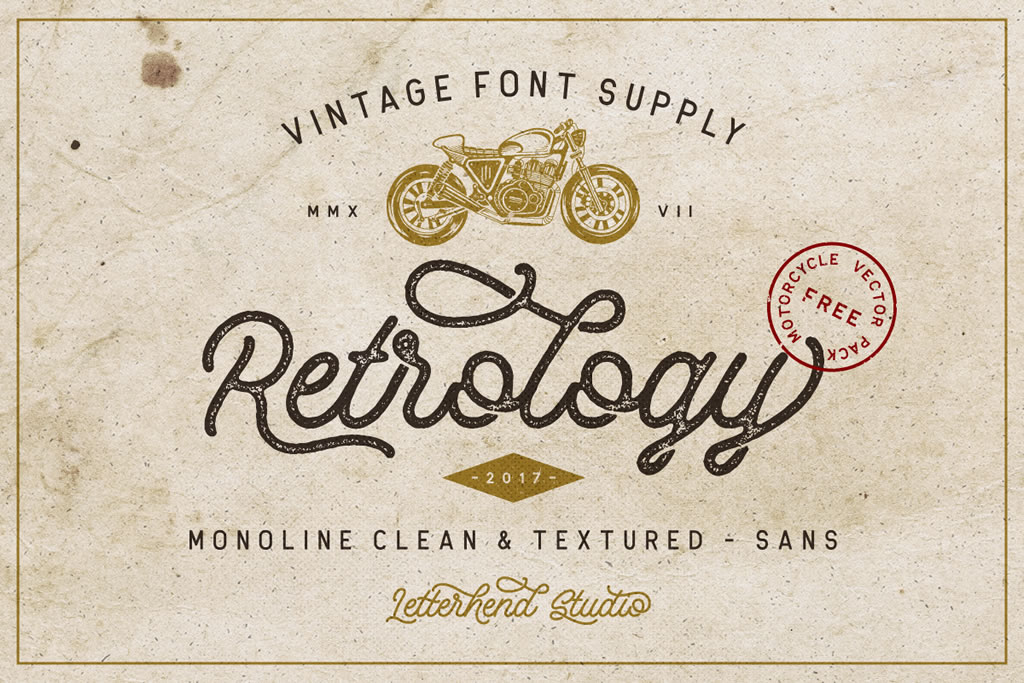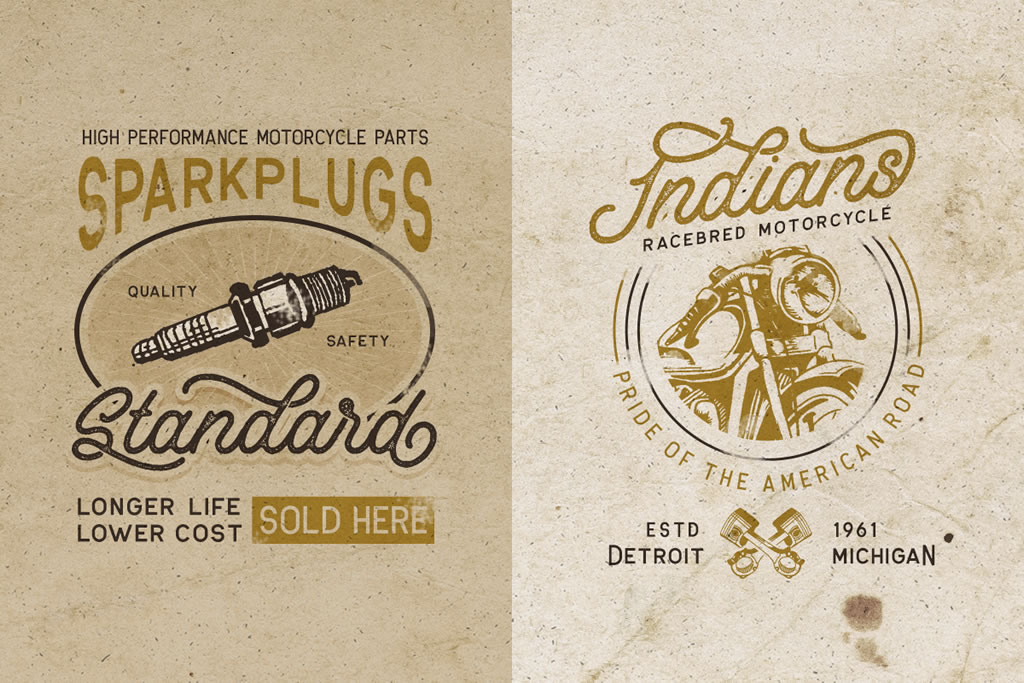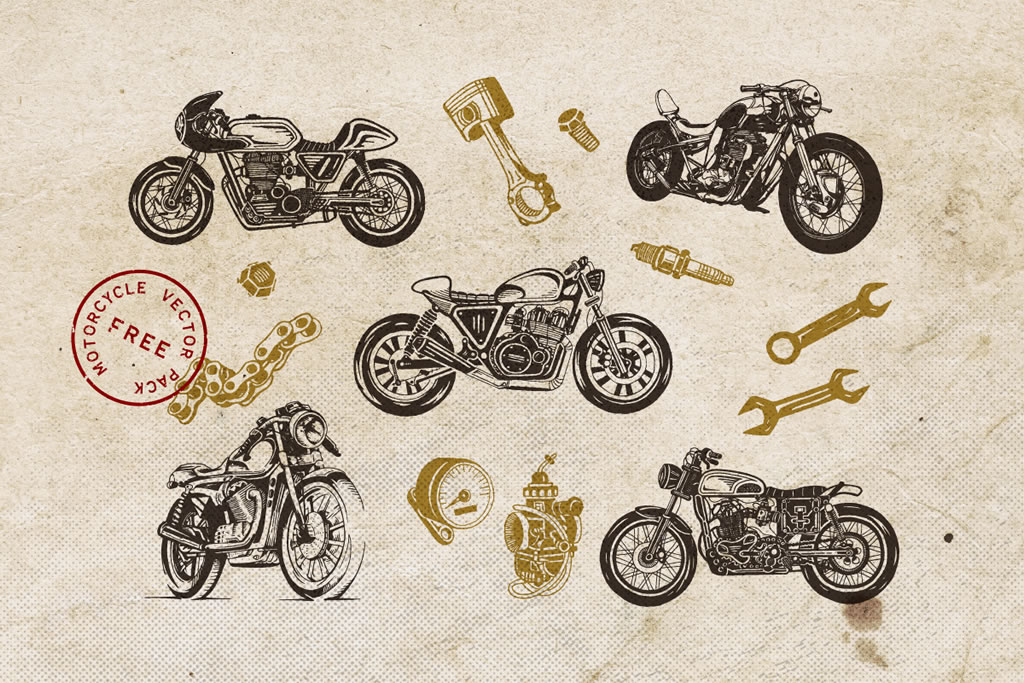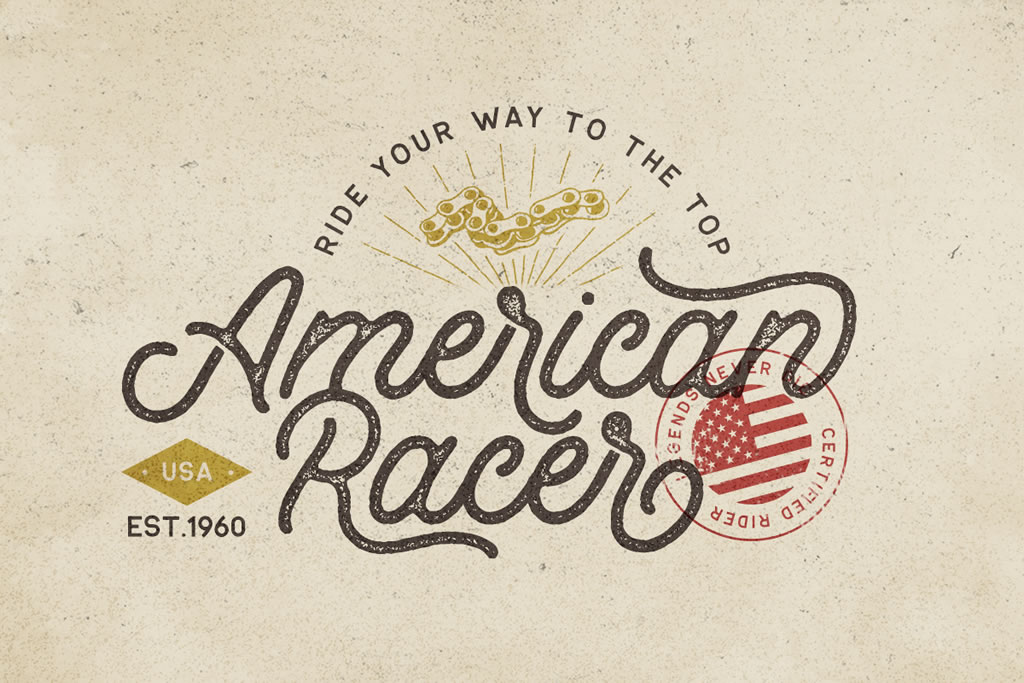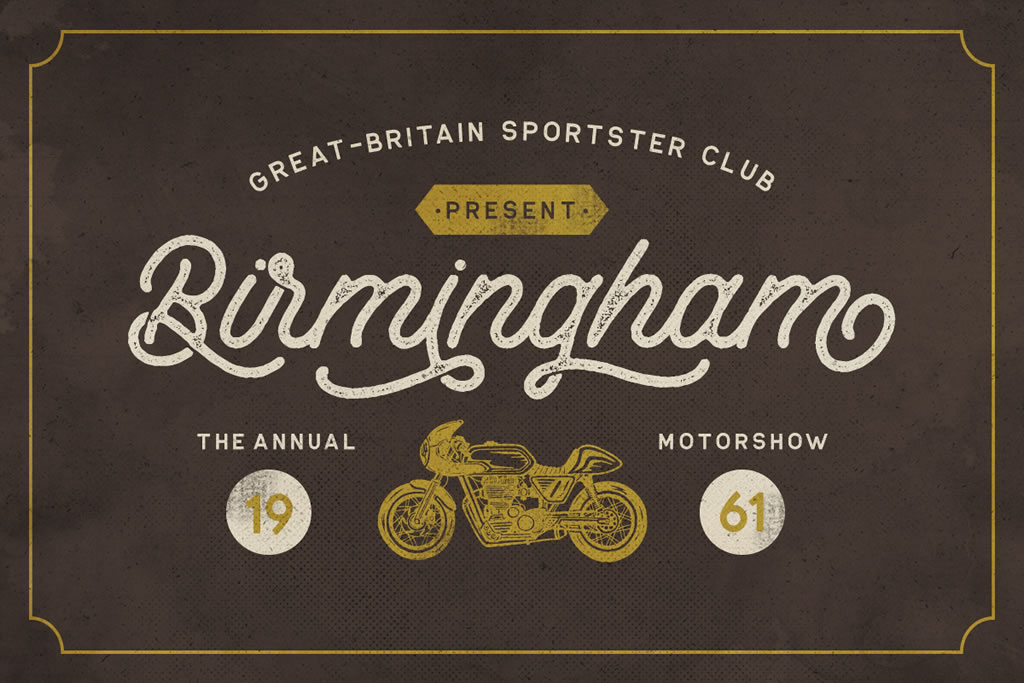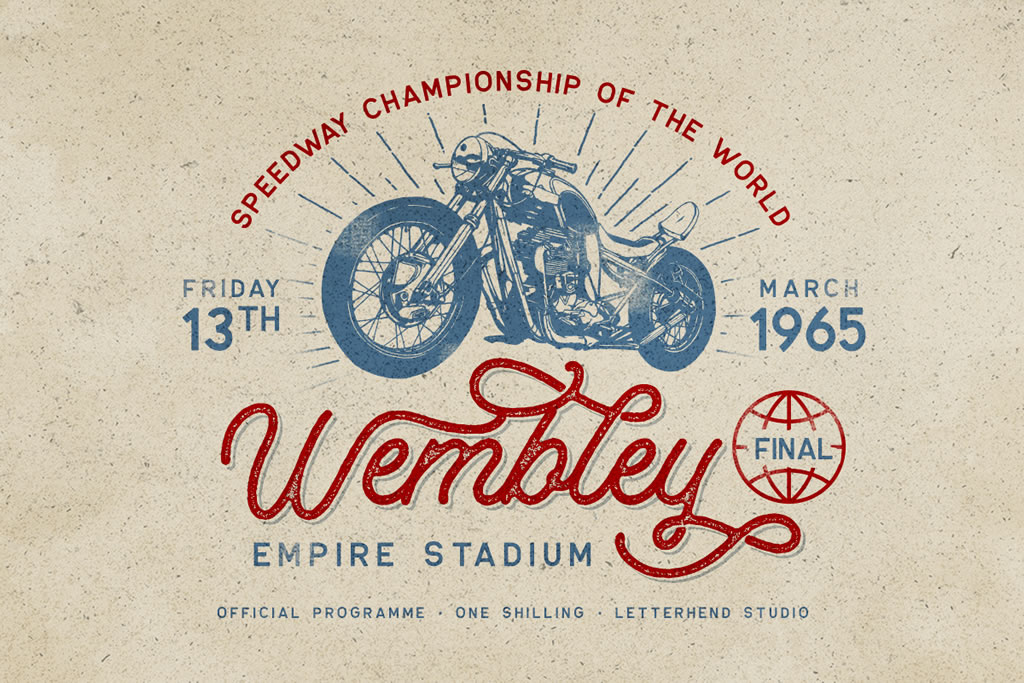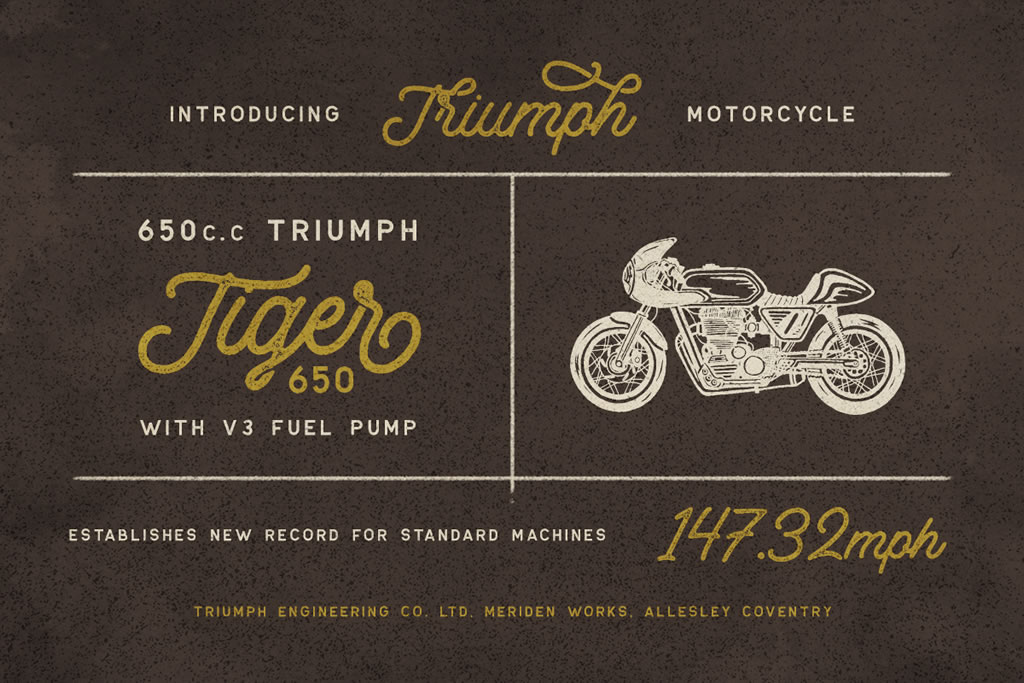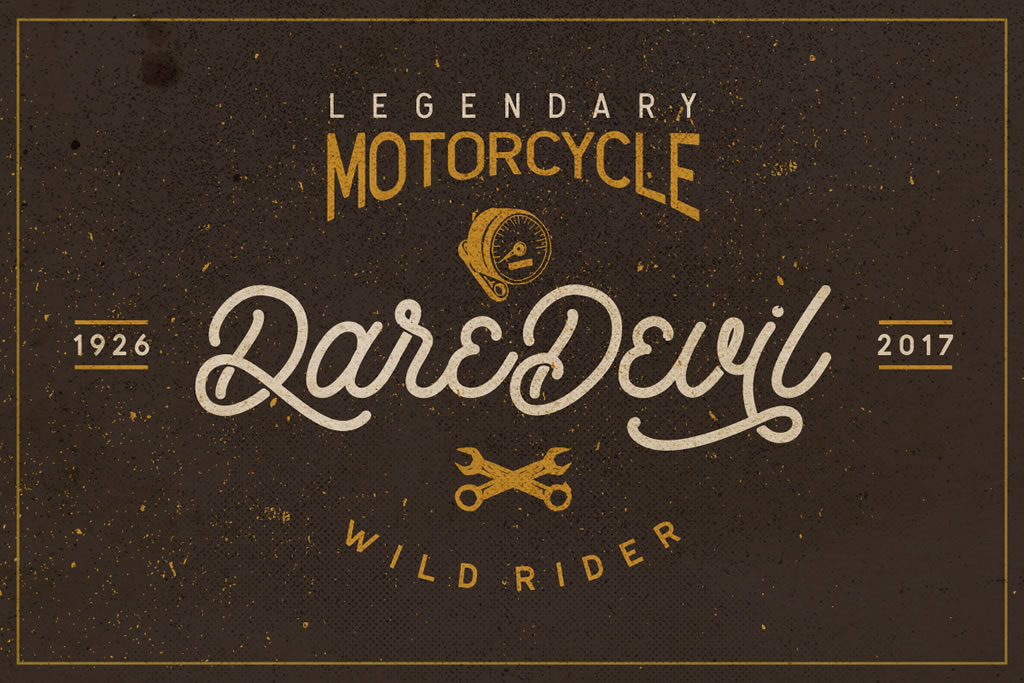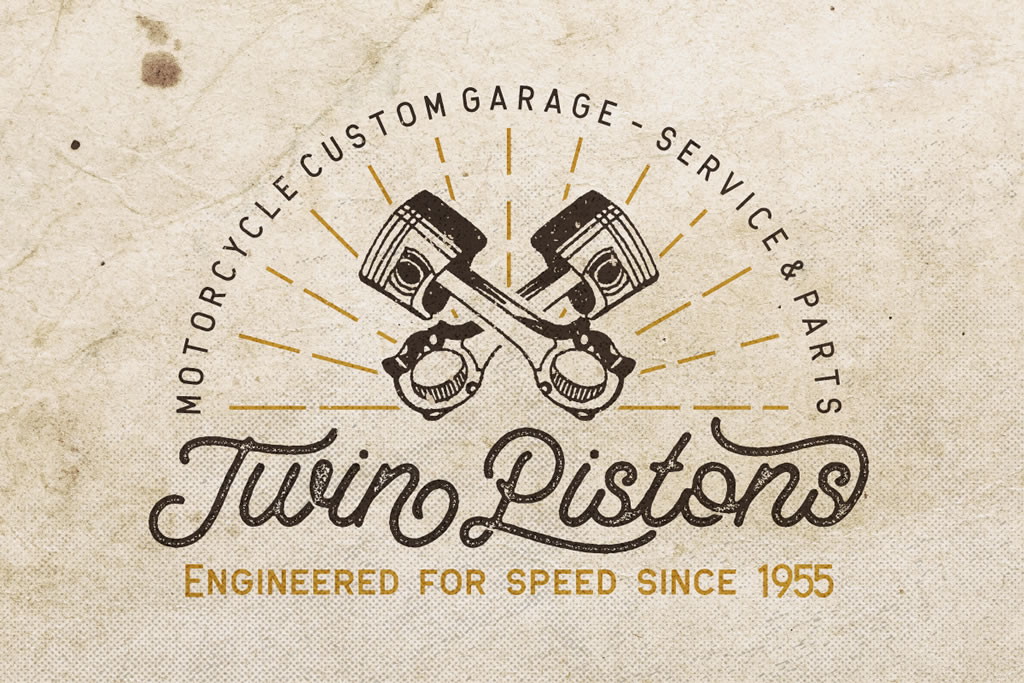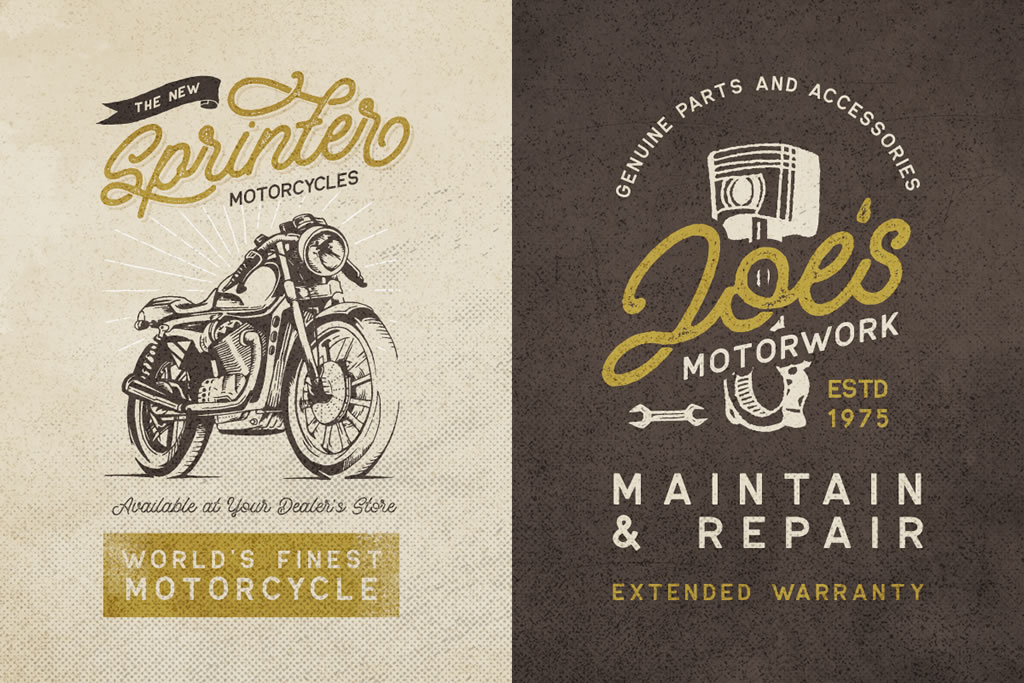
HomeScript FontsRetrology Font Script Fonts Retrology Font FacebookXPinterestWhatsApp Retrology Font Poster 2 Retrology Font Poster 3 Retrology Font Poster 4 Retrology Font Poster 5 Retrology Font Poster 6 Retrology Font Poster 7 Retrology Font Poster 8 Retrology Font Poster 9 Retrology Font Poster 10 Retrology Font Poster 11 About Retrology Font Retrology is a classic, retro monoline typeface. DOWNLOAD ON CREATIVE FABRICAThis font is sold and delivered by Creative Fabrica. Font Canyon may earn a commission if you buy through this link. People also explored Rendezvous High Prosess Font Visualgraph Font Rolanstine Font Rathiak Font Fathir Font Roselind Font Ningst Horizon Font Miracle Font 428 0 TagsRetrology Font Previous articleTake Easy FontNext articleMarttabuck Font LEAVE A REPLY Cancel reply Comment: Please enter your comment! Name:* Please enter your name here Email:* You have entered an incorrect email address! Please enter your email address here Website: Save my name, email, and website in this browser for the next time I comment. Personal Use Free Mama Personal Use Free Read more about this font Nottingsam Personal Use Free Read more about this font BD Spinner Personal Use Free Read more about this font Makeba Font Personal Use Free Read more about this font BLOG Using Fonts in Digital Marketing: Tips to Strengthen Your Brand Identity In the realm of digital marketing, every visual element plays a crucial role in shaping a brand's identity, and fonts are no exception. The... How to Cut Any Font on Cricut: Convert a Font to SVG (Free) Best Fonts for T-Shirt Design – Top 2025 Picks Elegant Wedding Invitation Fonts – Handwritten & Script Fonts